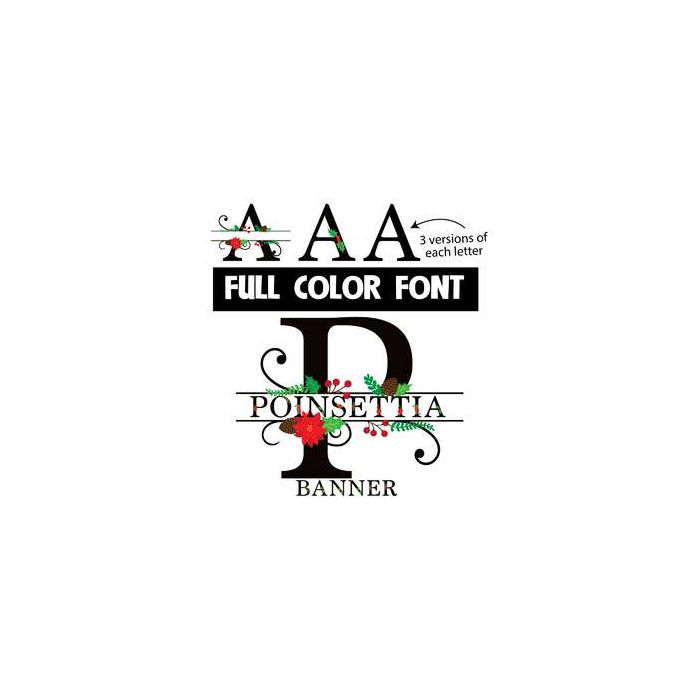
This full-color font features a spray of Christmas flowers on top of a banner monogram. Type the uppercase letter to create banner and use the lowercase and alt-case to type the name to place inside. This font works best for titles, displays, posters and more. Please note color fonts will show as black in non compatible programs. This font type is compatible with Silhouette Studio.